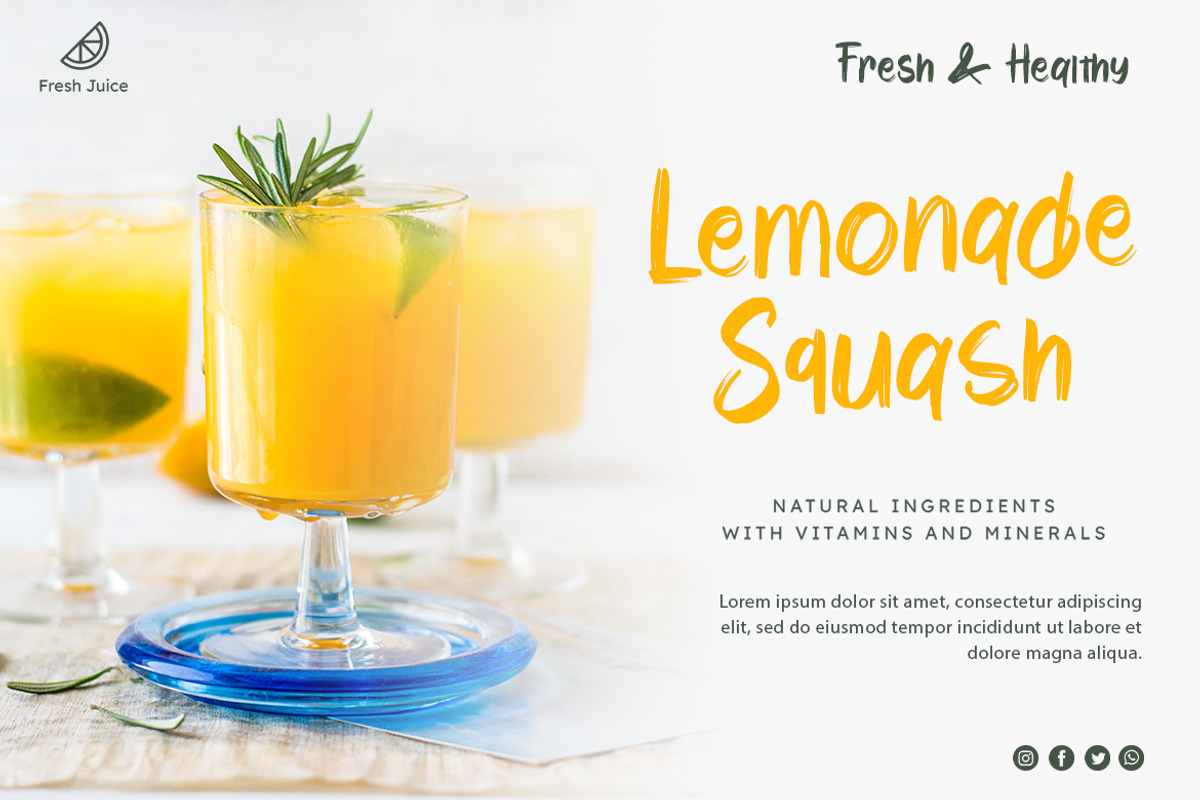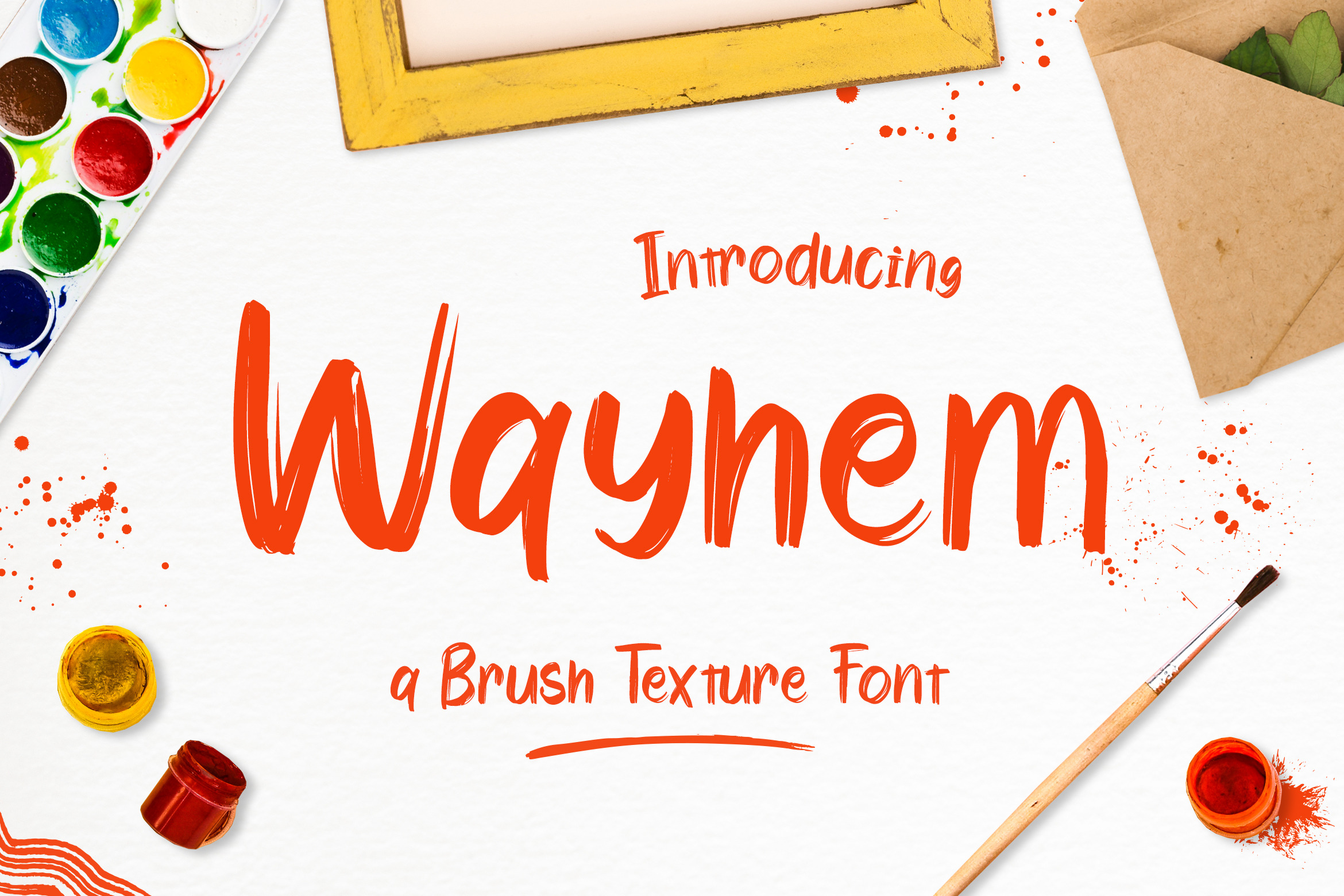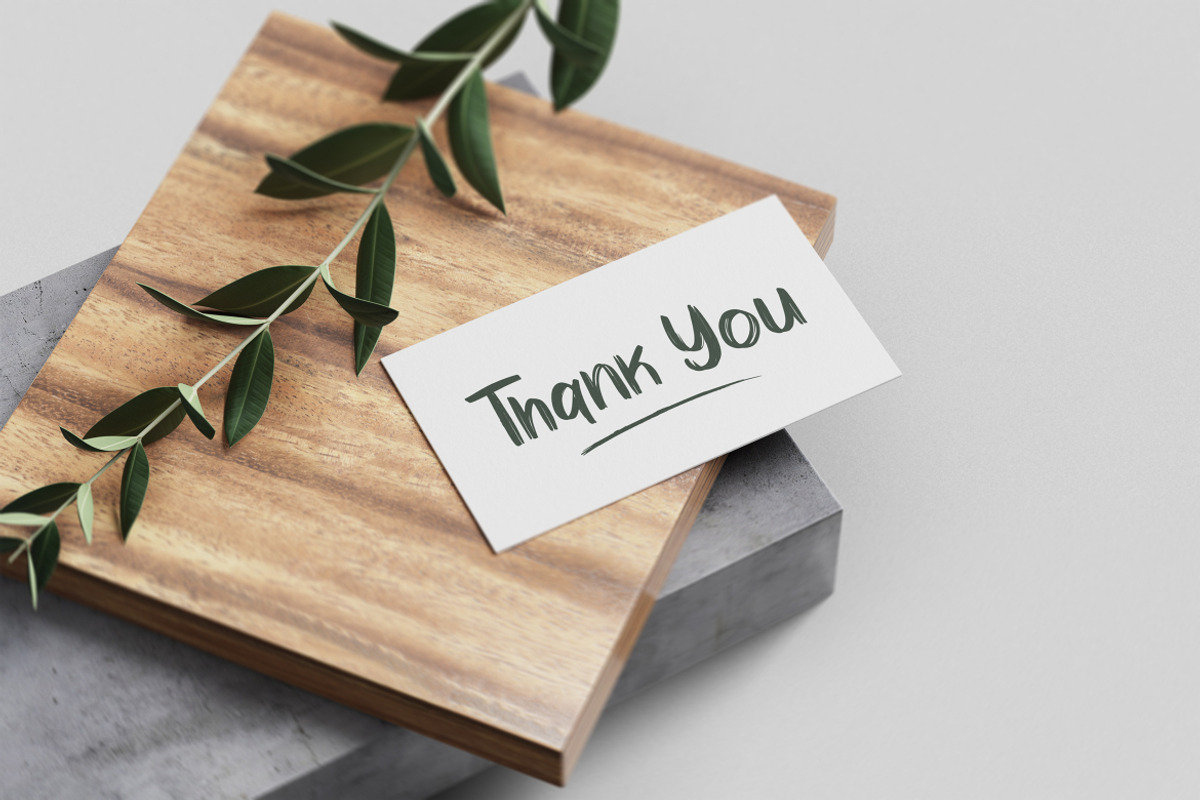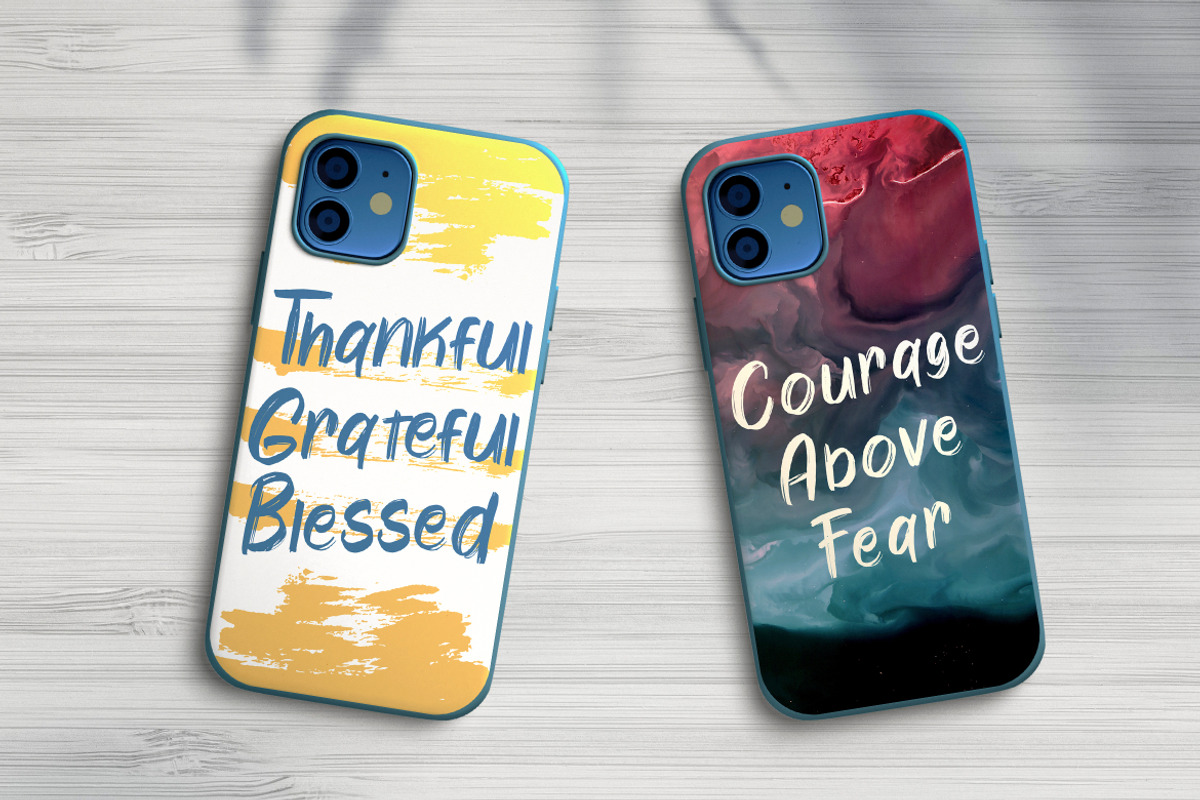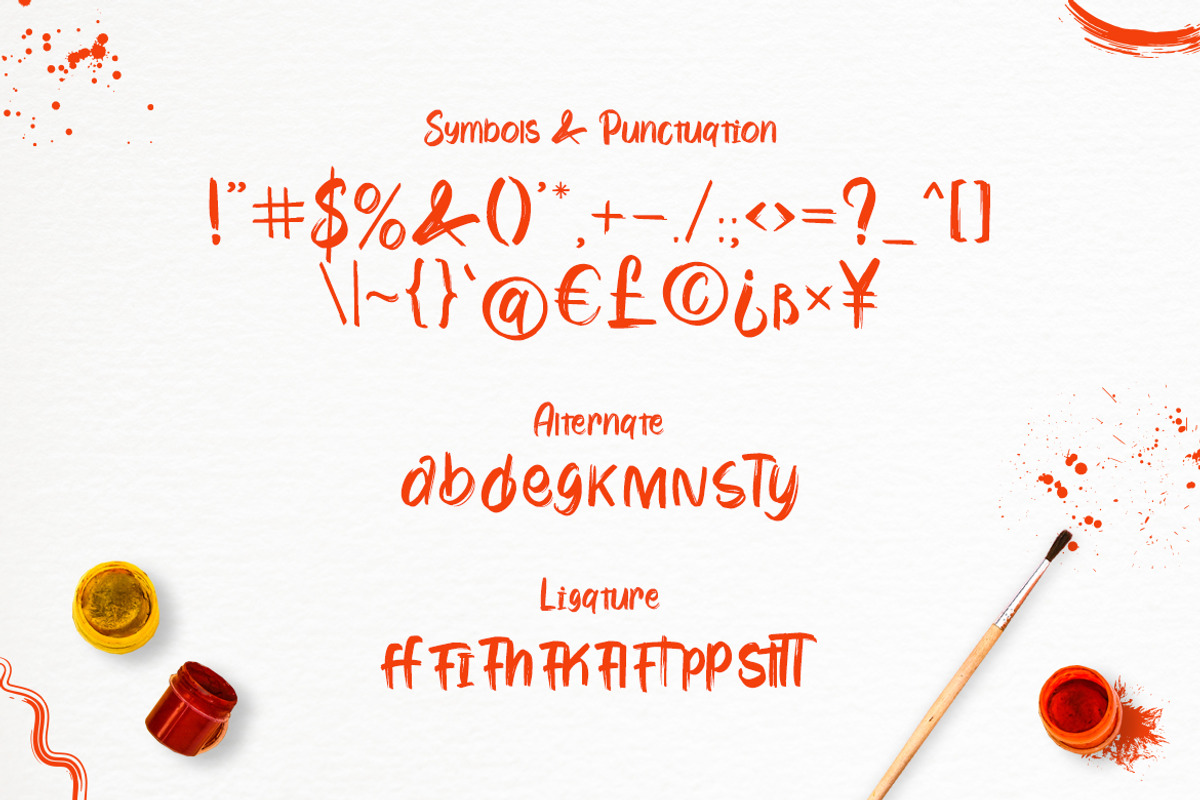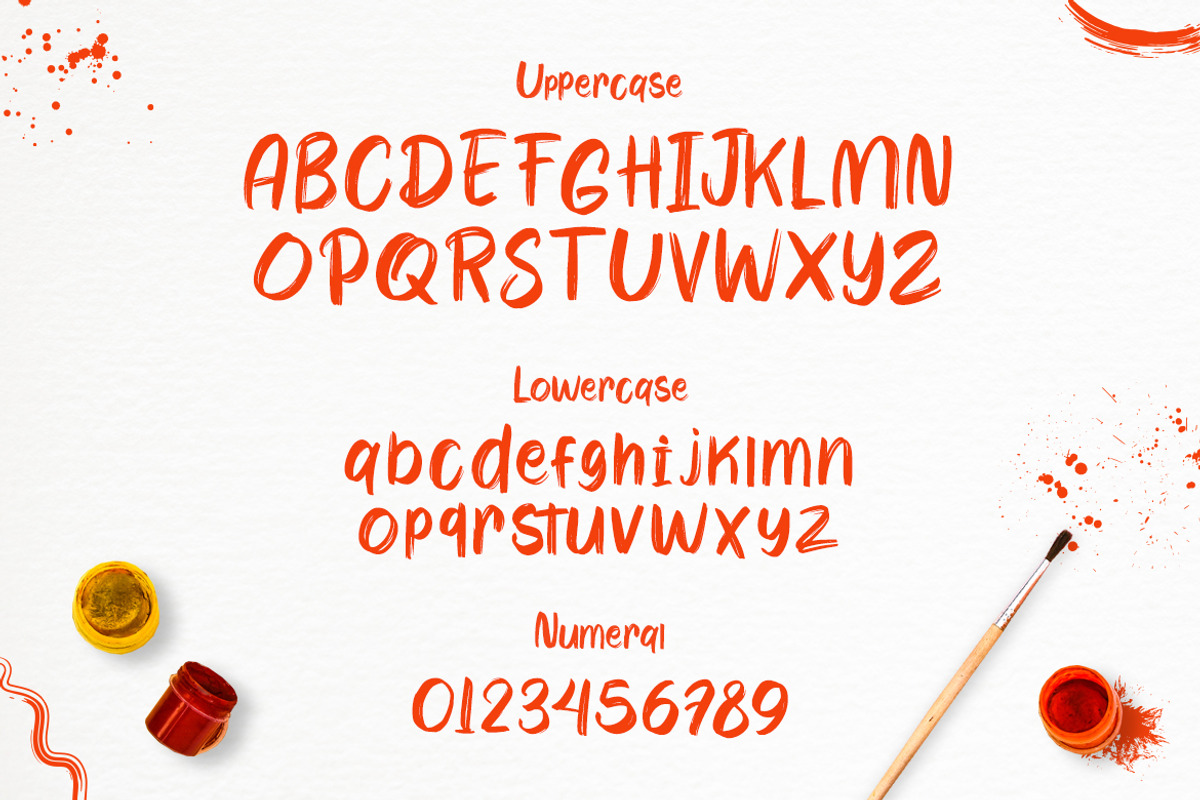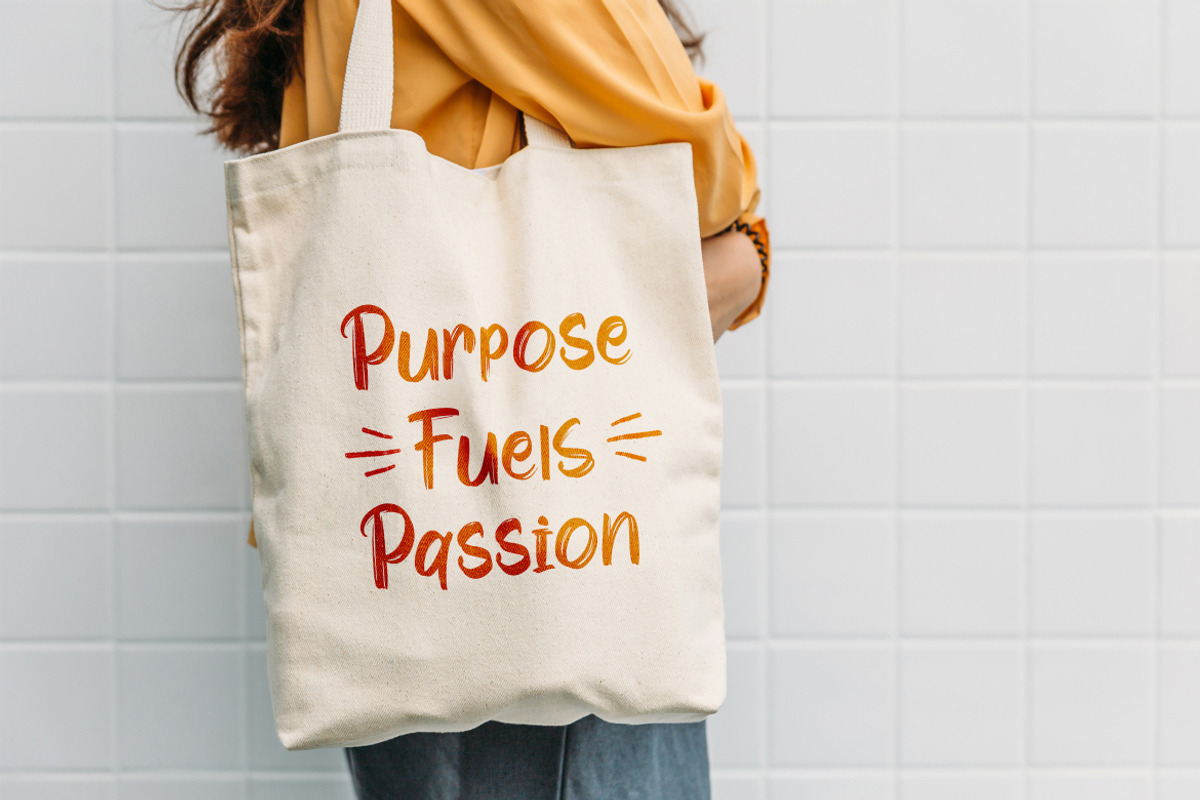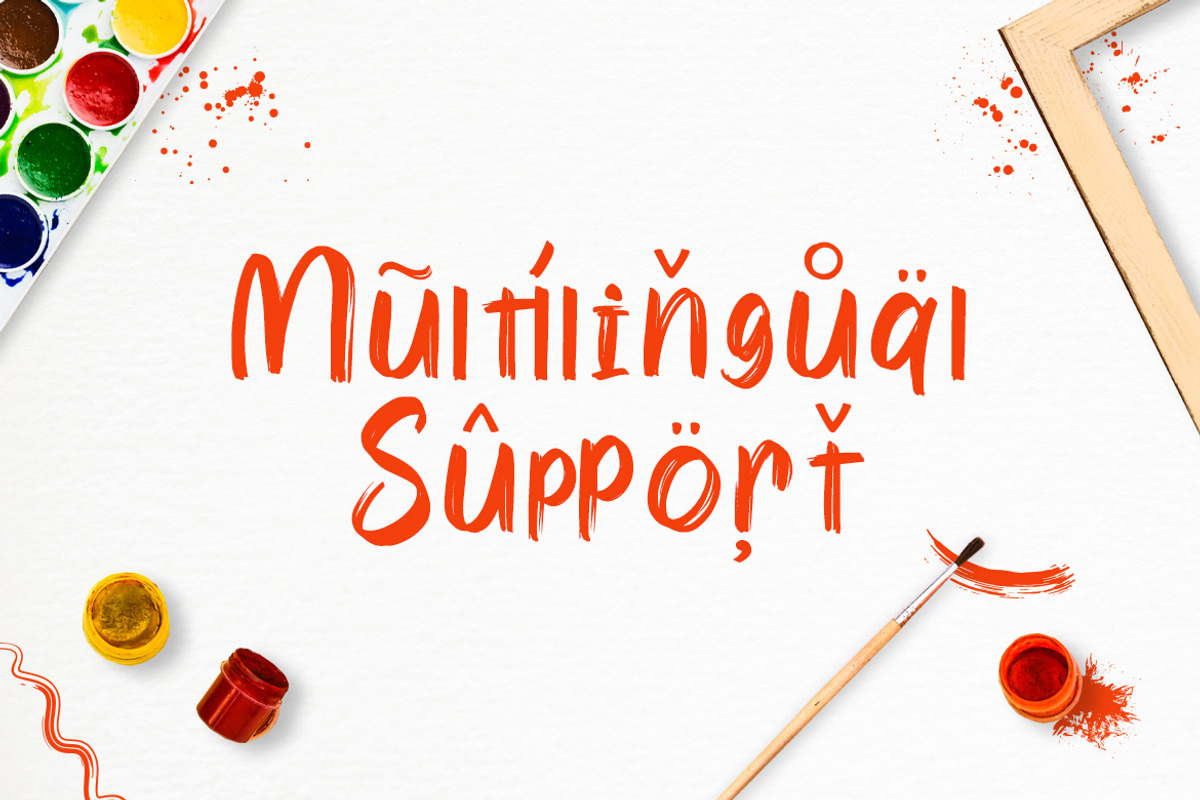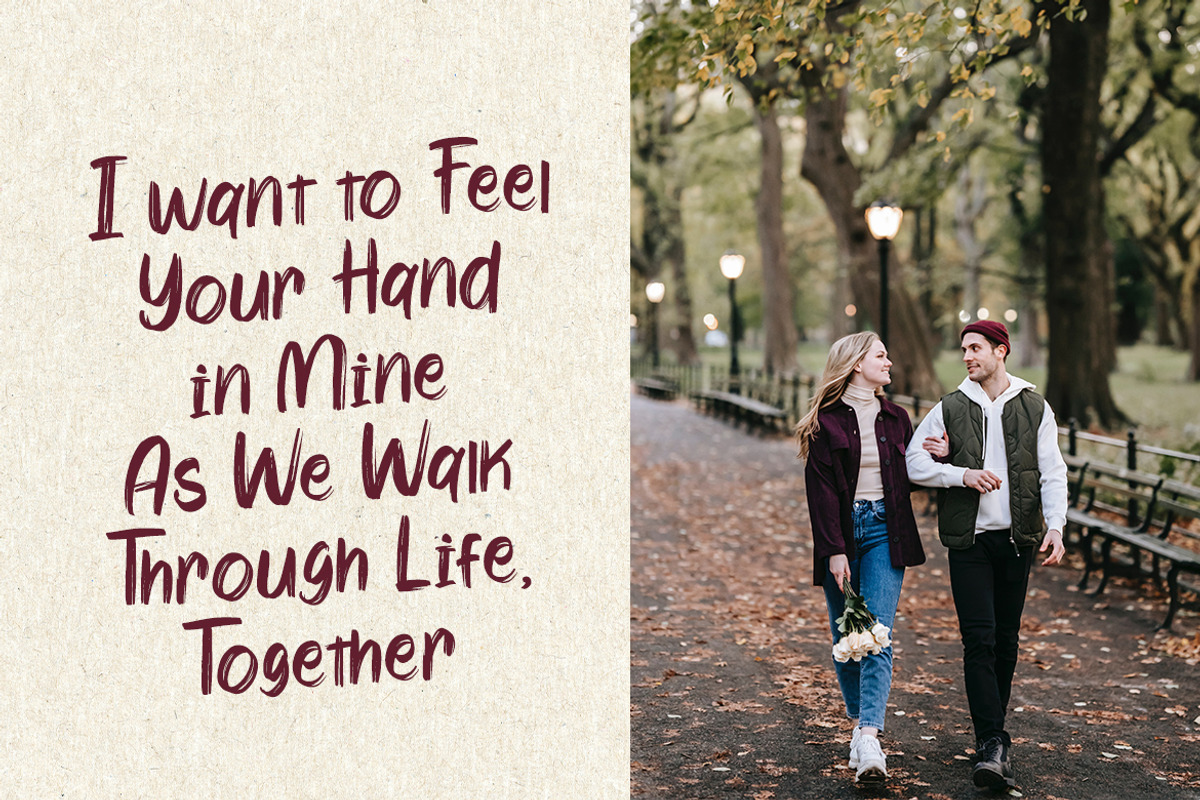
Wayhem - Brush Texture Font
Wayhem is a textured brush font with rough and casual letters. It’s great for logos, branding, print projects and any attention drawing headline. Features:
- Symbols & Punctuation
- Numeral